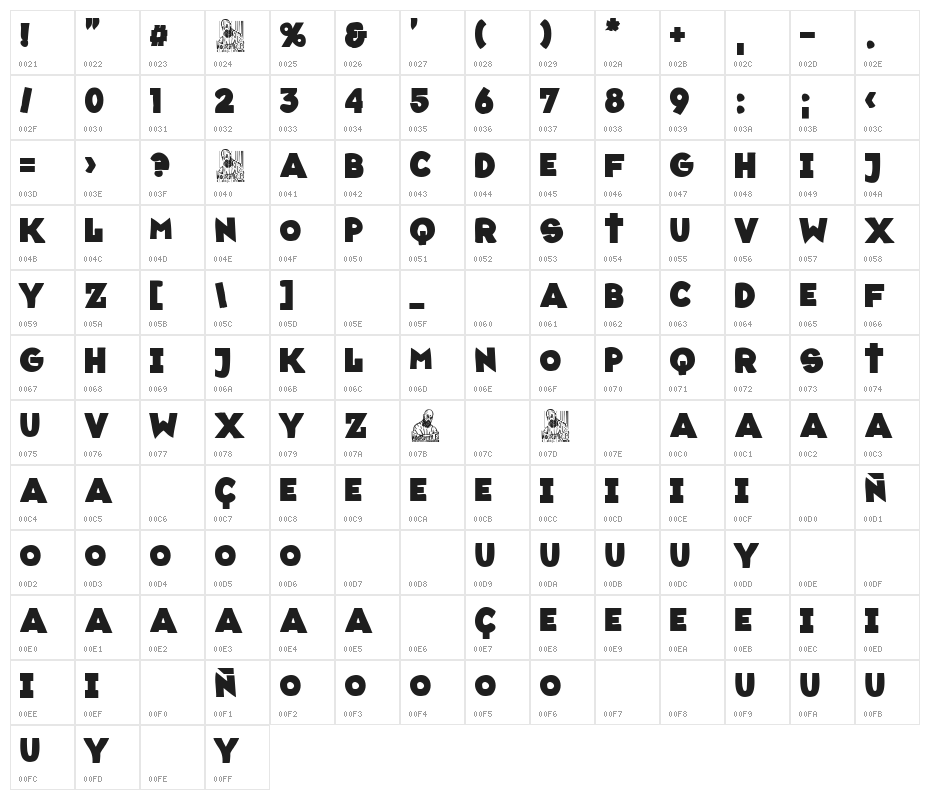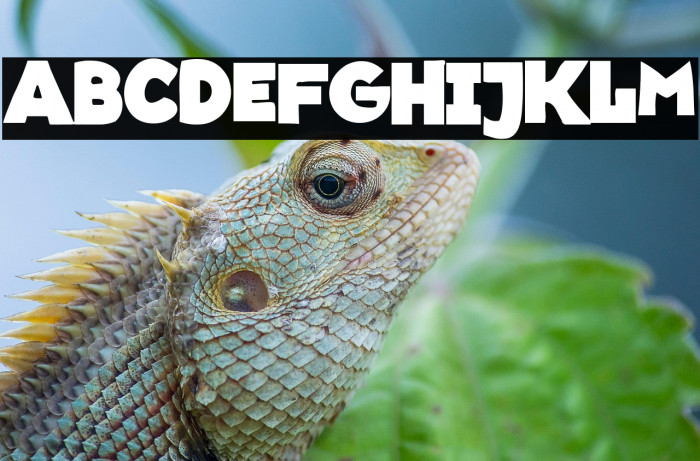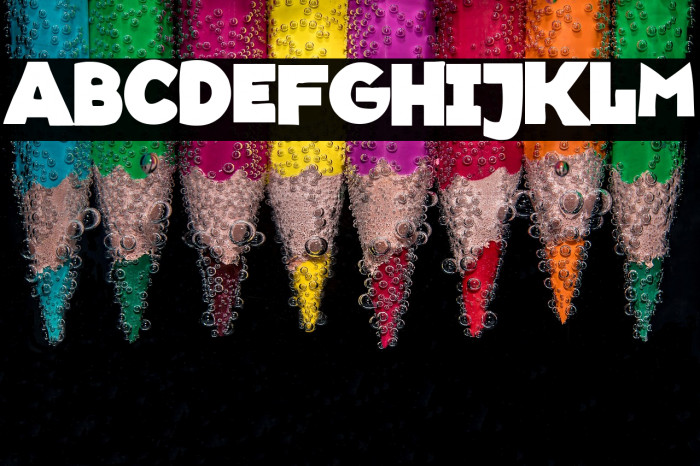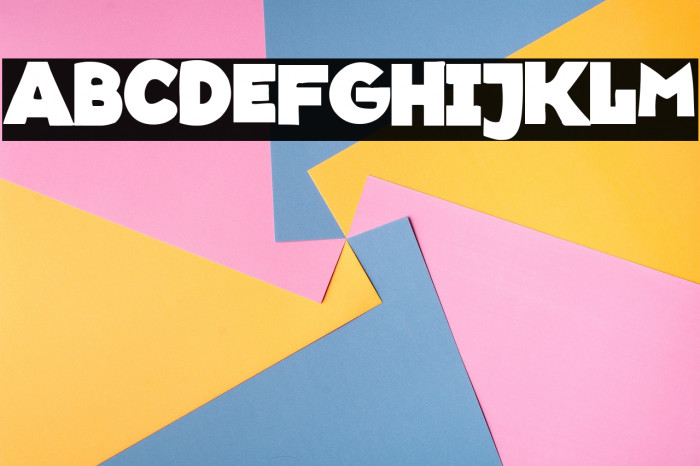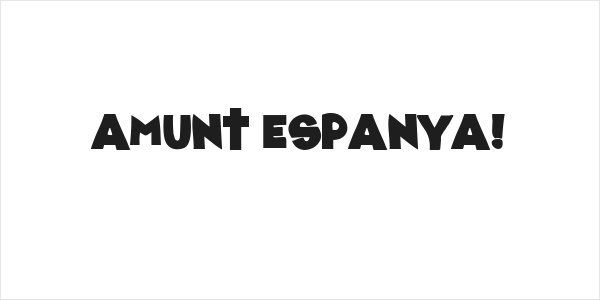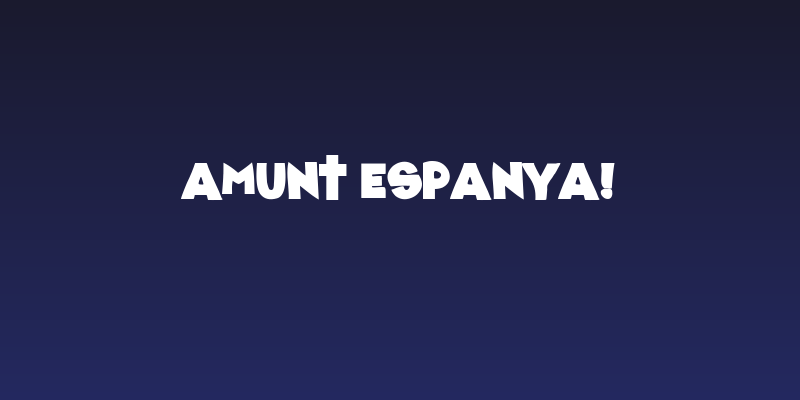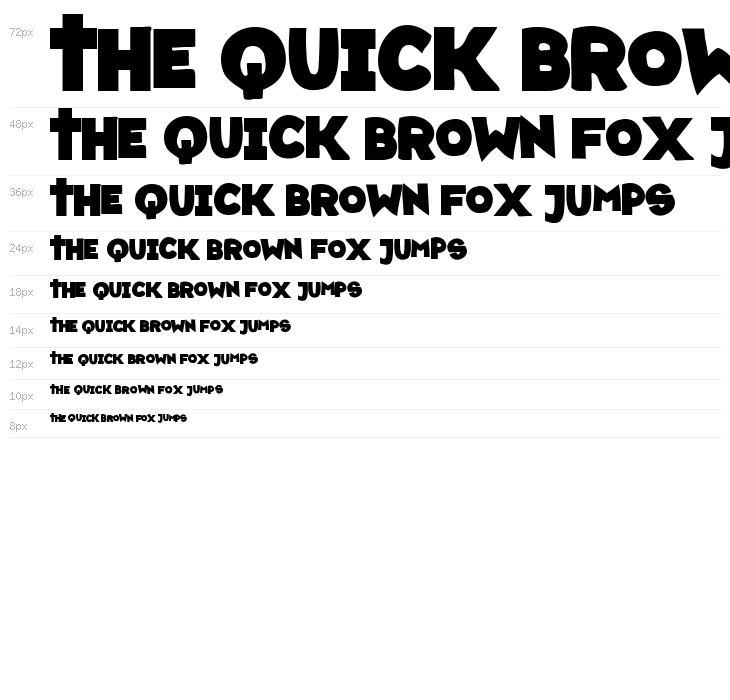
Amunt Espanya! Font
Amunt Espanya! Description
This font features a bold and playful design with a strong presence. The characters are blocky and geometric, with a slight tilt that adds a dynamic feel. The uppercase and lowercase letters maintain a consistent style, with rounded edges and a uniform thickness throughout. The numbers and special characters follow the same design principles, ensuring a cohesive look. The font's boldness makes it stand out, while its playful nature gives it a friendly and approachable appearance.
| Overall Style | Playful, Modern |
| Proposed Projects | Ideal for children's books, playful branding, posters, and event invitations. |